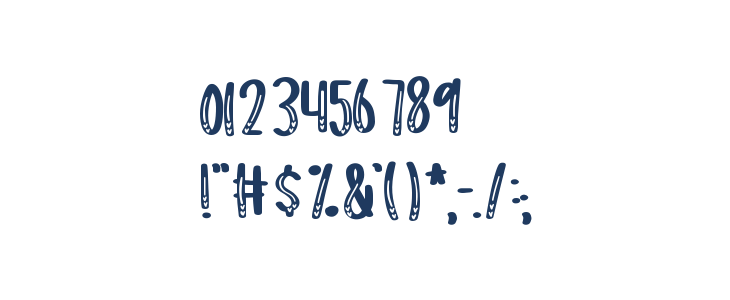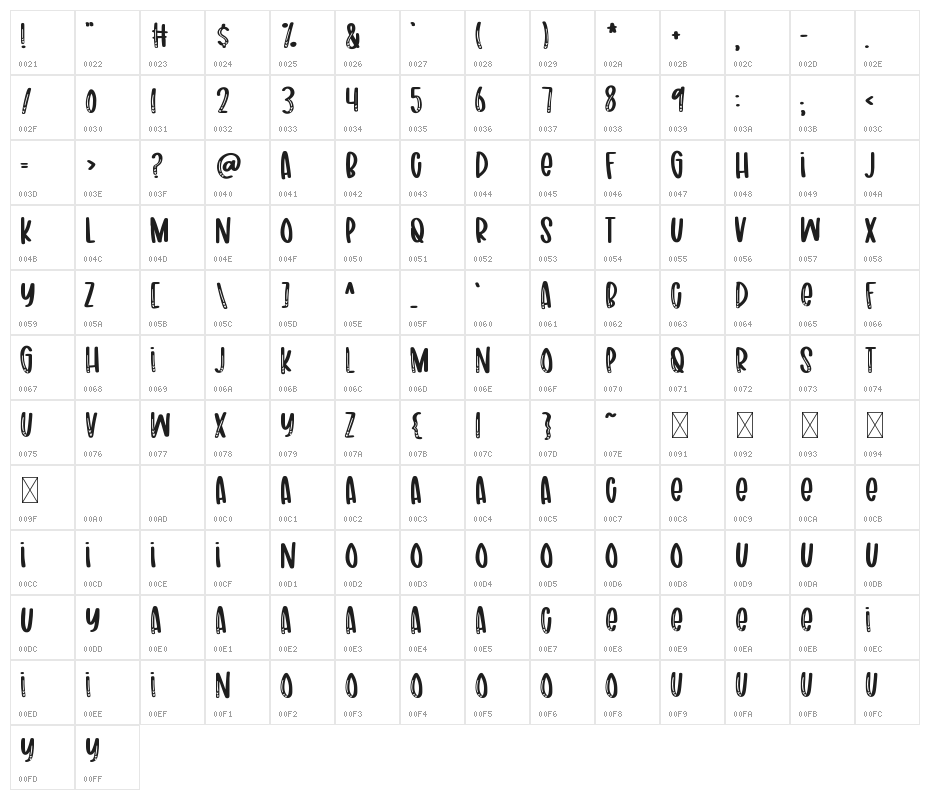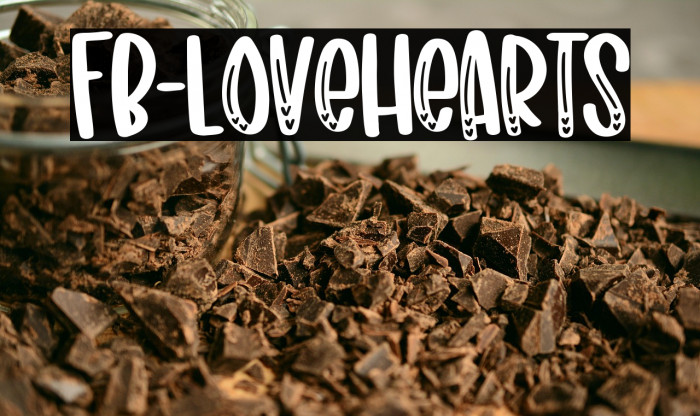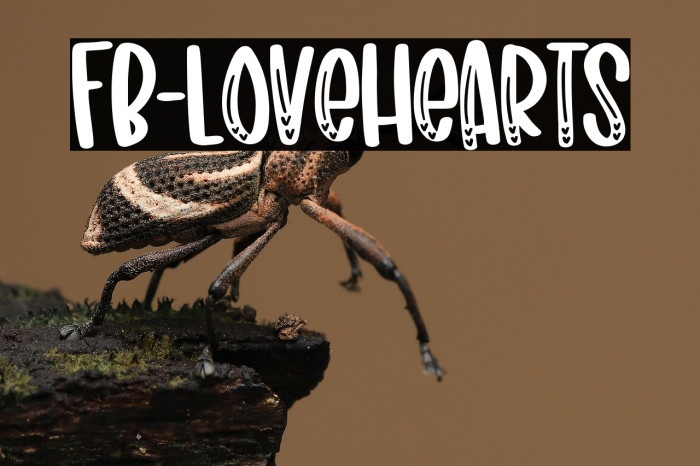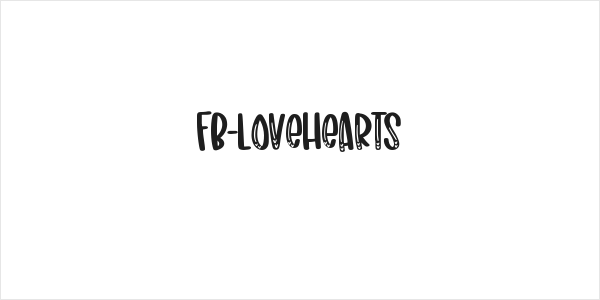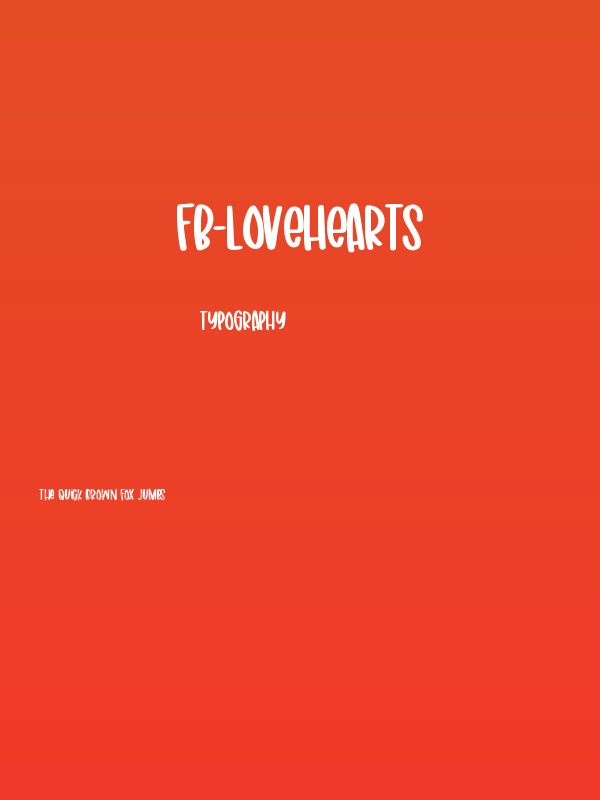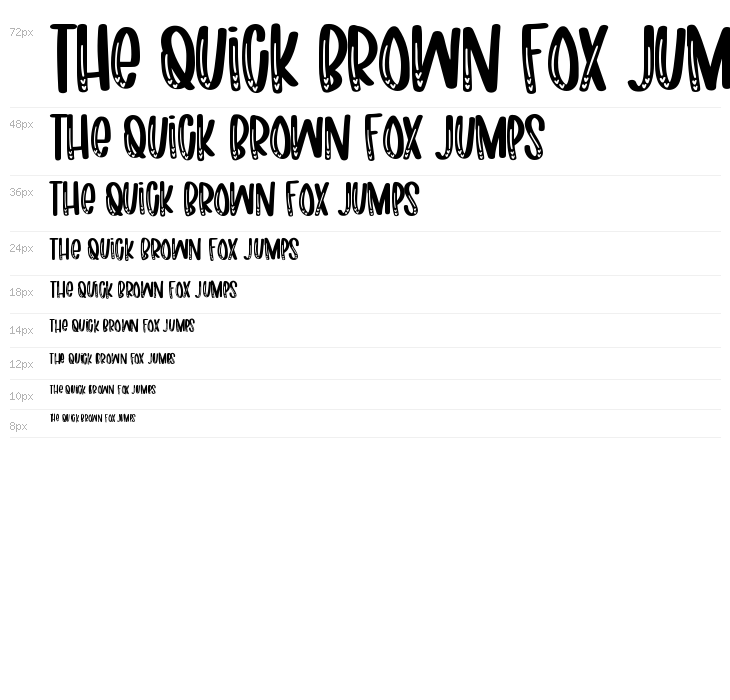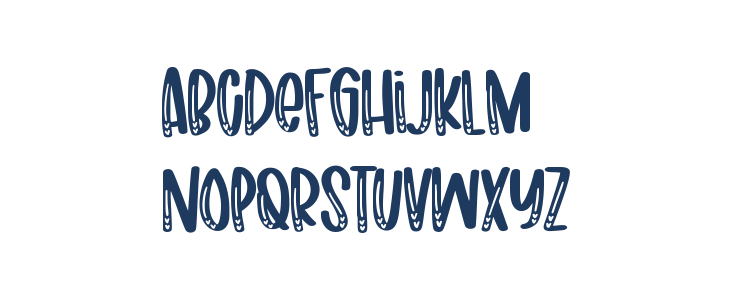
FB-LoveHearts Font
FB-LoveHearts Description
This playful and whimsical font features bold, rounded letters with a charming, hand-drawn aesthetic. The uppercase and lowercase characters are consistent in style, with a slightly irregular baseline that adds to its casual and friendly appearance. The font includes numbers and a variety of special characters, each maintaining the same lively and energetic style. The heart motifs integrated into the characters add a unique and endearing touch, making it perfect for designs that require a personal and affectionate feel.
| Proposed Projects | Ideal for greeting cards, children's books, playful branding, and Valentine's Day promotions. |